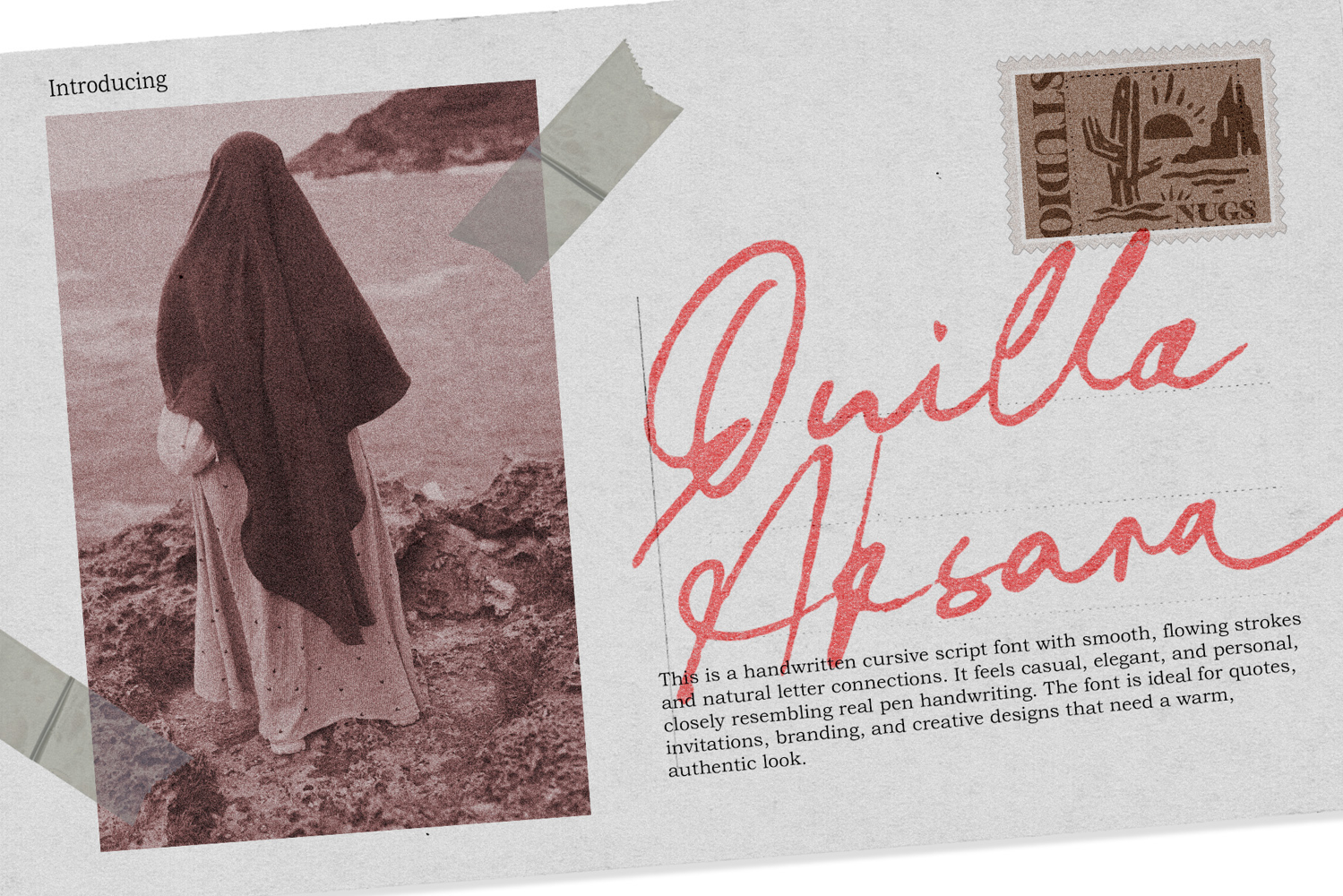
Quilla Aksara
Quilla Alksara
Hello! Let me introduce Quilla Aksara — a modern calligraphy font. With its natural, elegant shapes Walonka is the perfect choice for logos, branding, web, blog headlines, invitations, magazine and book design, product packaging — or for any text on postcards and on your favorite photos.